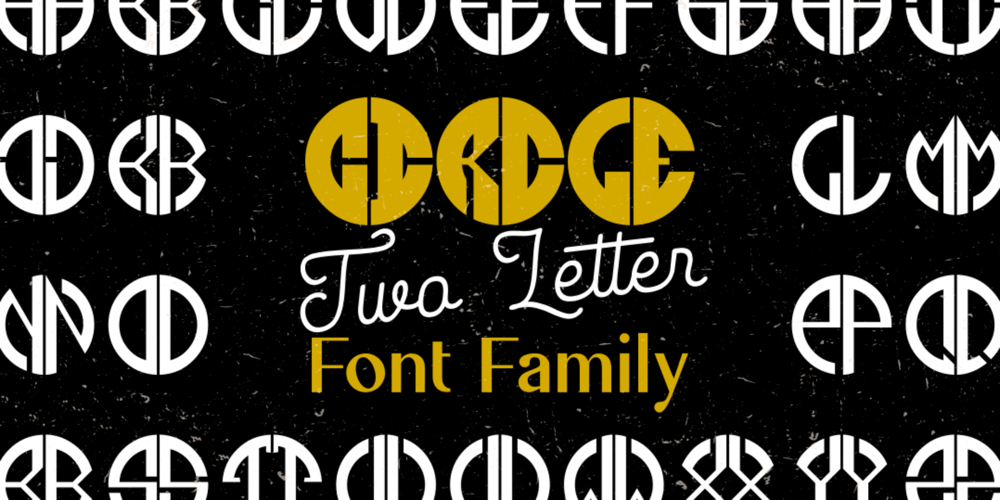
Circle Two Letter Font Family was designed by Sadat Fauzi and published by Fauzistudio. Circle Two Letter contains 9 styles and family package options. Cilcle TwoLetter Monogram Logo Font Family with OpenType magic that can adjust to front and back letters, there are 10 frame variations that you can access at numbers 0-9 how to activate it simply by adding a number in front of your initials, typing something (0AB – 9AB) it will automatically compose . you can use it on any Logo project it is perfect to add to your collection.Cilcle TwoLetter font FAMILY – includes 9 weights (Thin, Extra light, Light, Regular, Medium, Semi Bold, Bold, Extra Bold, Black) : Cilcle TwoLetter Thin Cilcle TwoLetter Extralight Cilcle TwoLetter Light Cilcle TwoLetter Regular Cilcle TwoLetter Medium Cilcle TwoLetter Semibold Cilcle TwoLetter Bold Cilcle TwoLetter Extra Bold Cilcle TwoLetter Black Hope you enjoy.Intuisi Creative